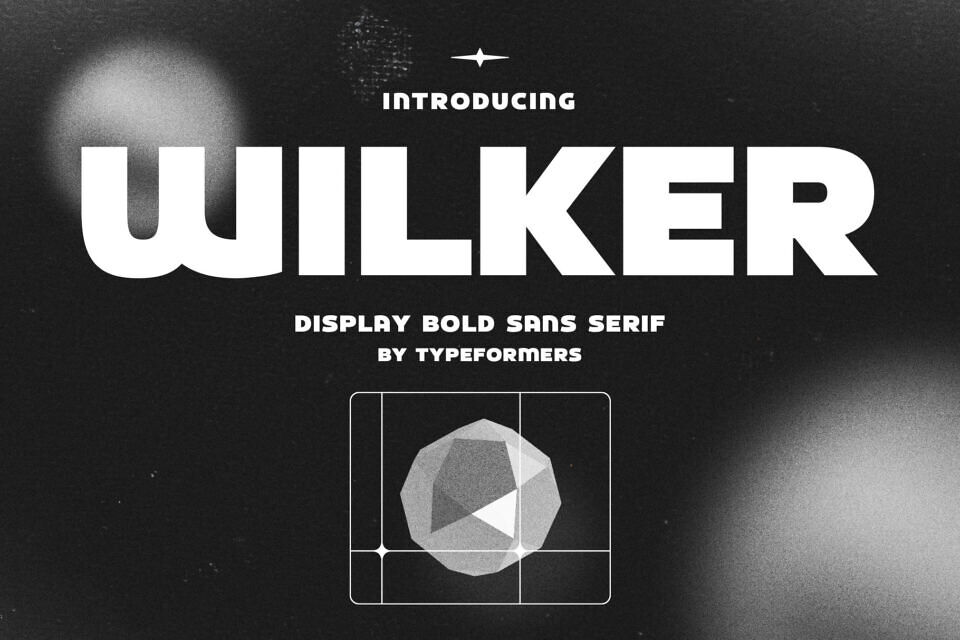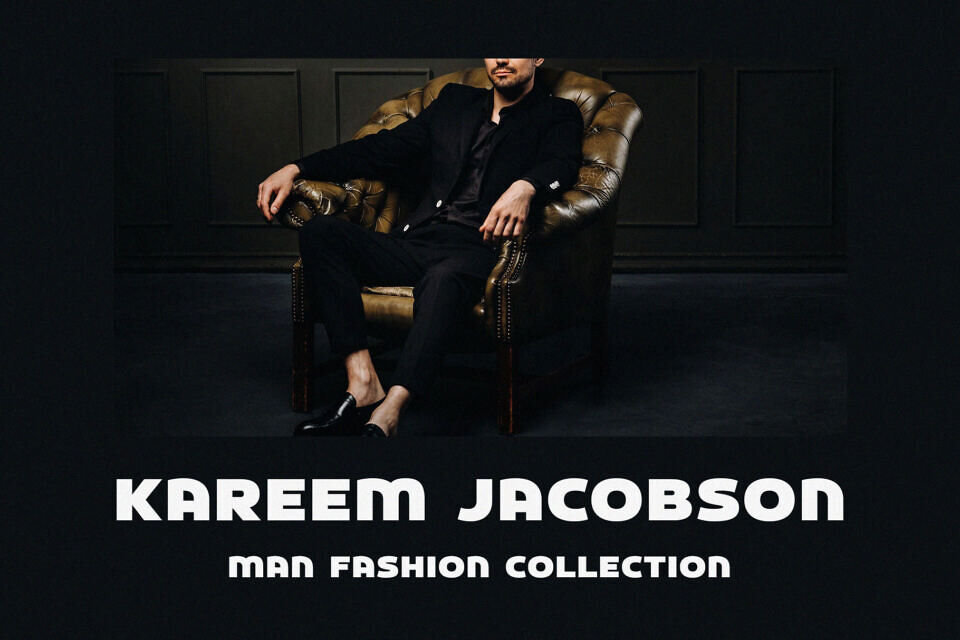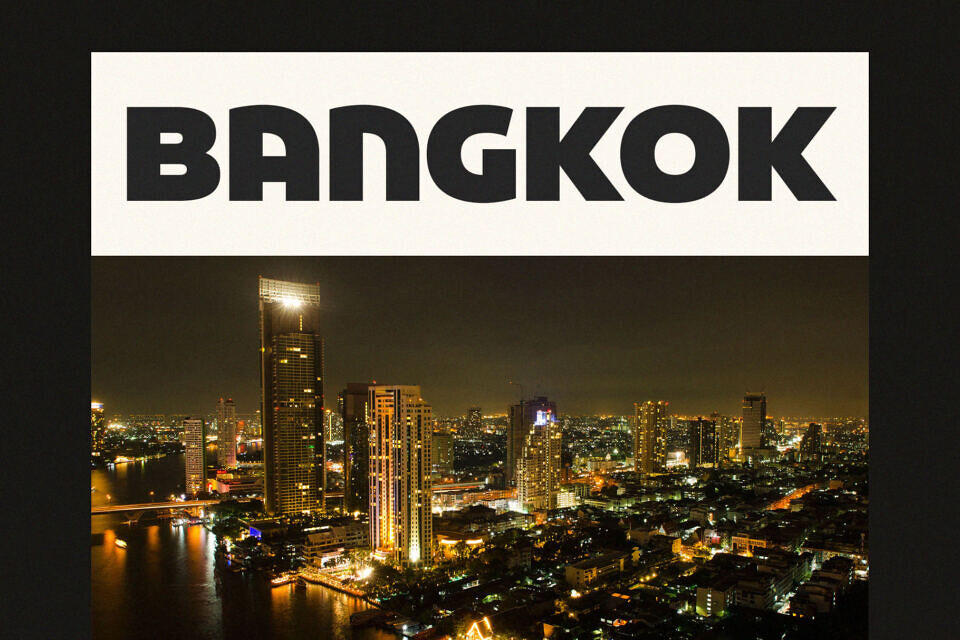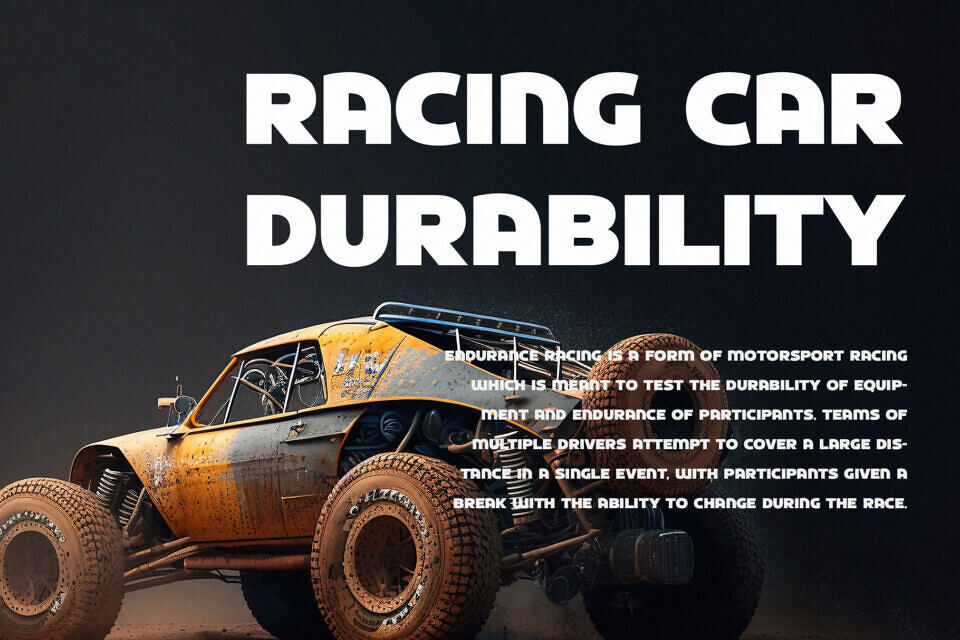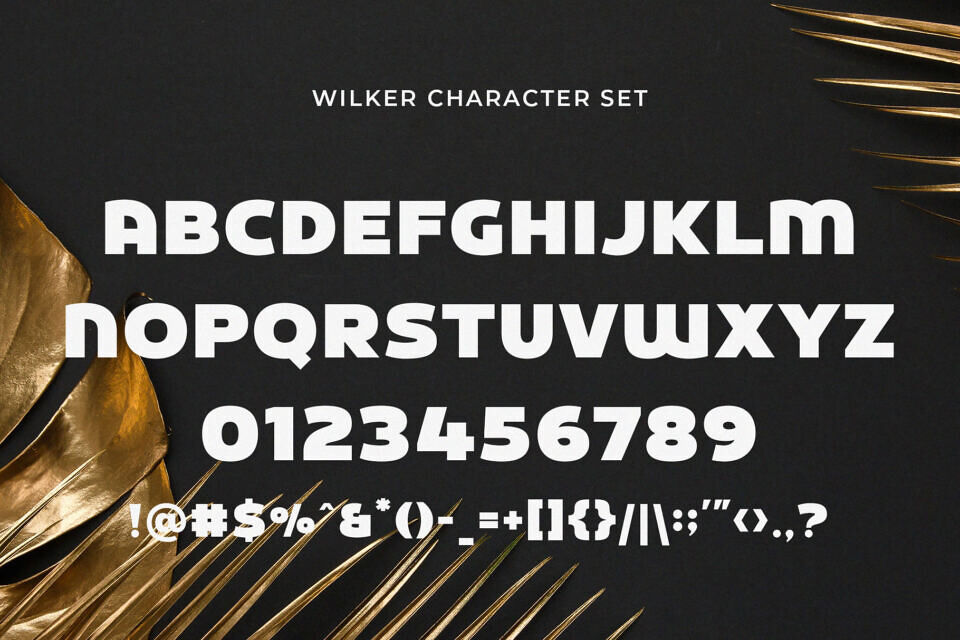
Meet Wilker, a sleek sans-serif font perfect for making a statement. Its modern and understated design makes it ideal for use in headings, logos, and branding, as well as in magazines, packaging, and invitations, where a bold and eye-catching display is needed.